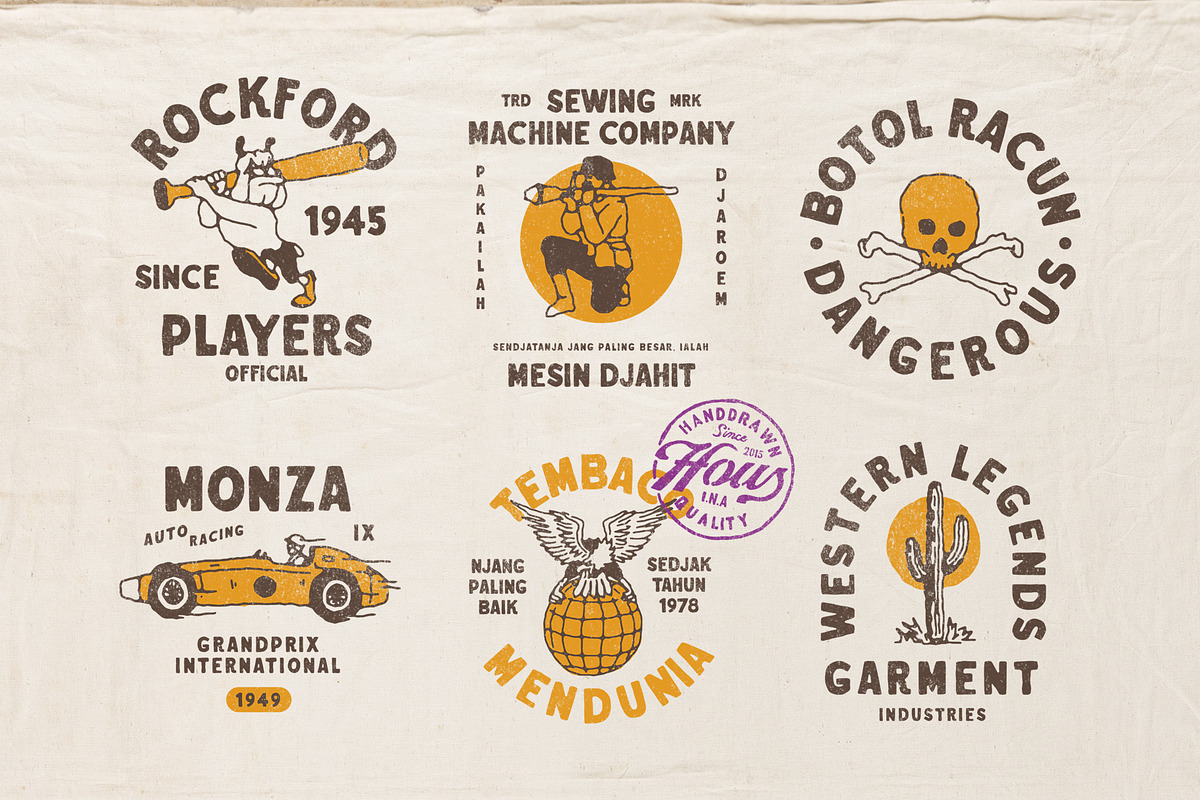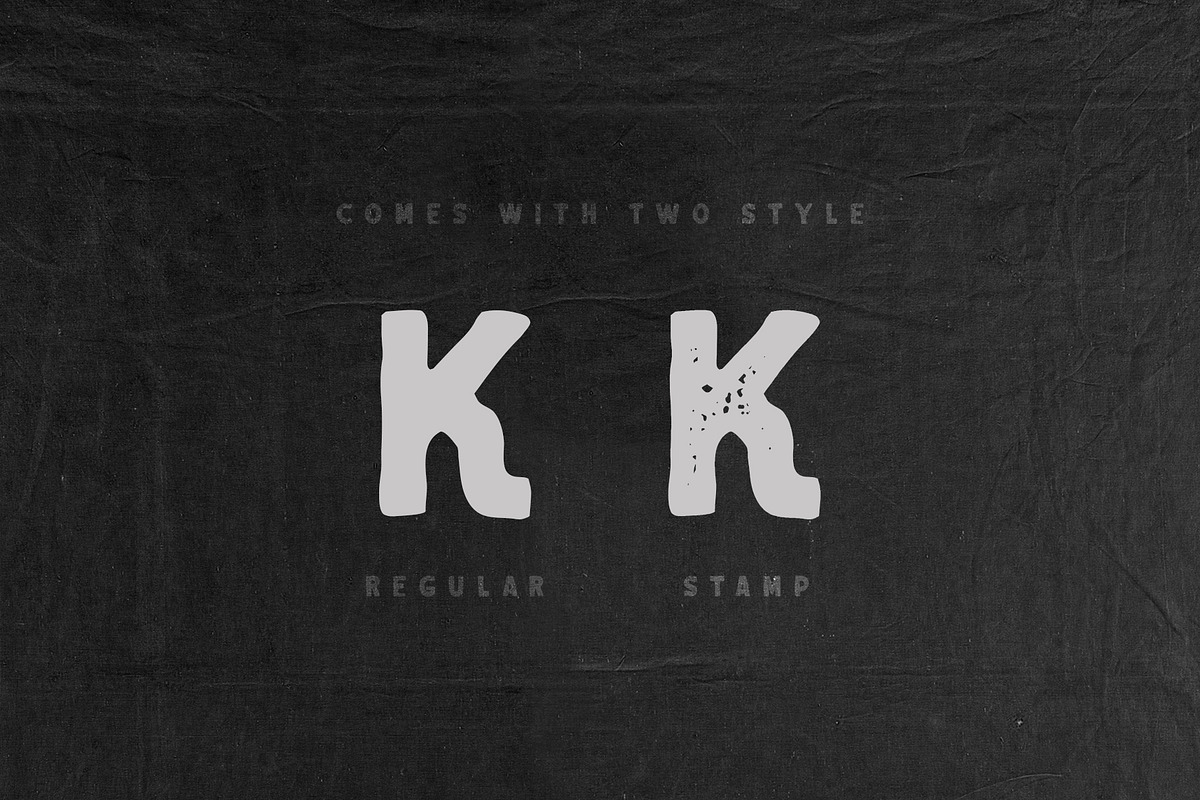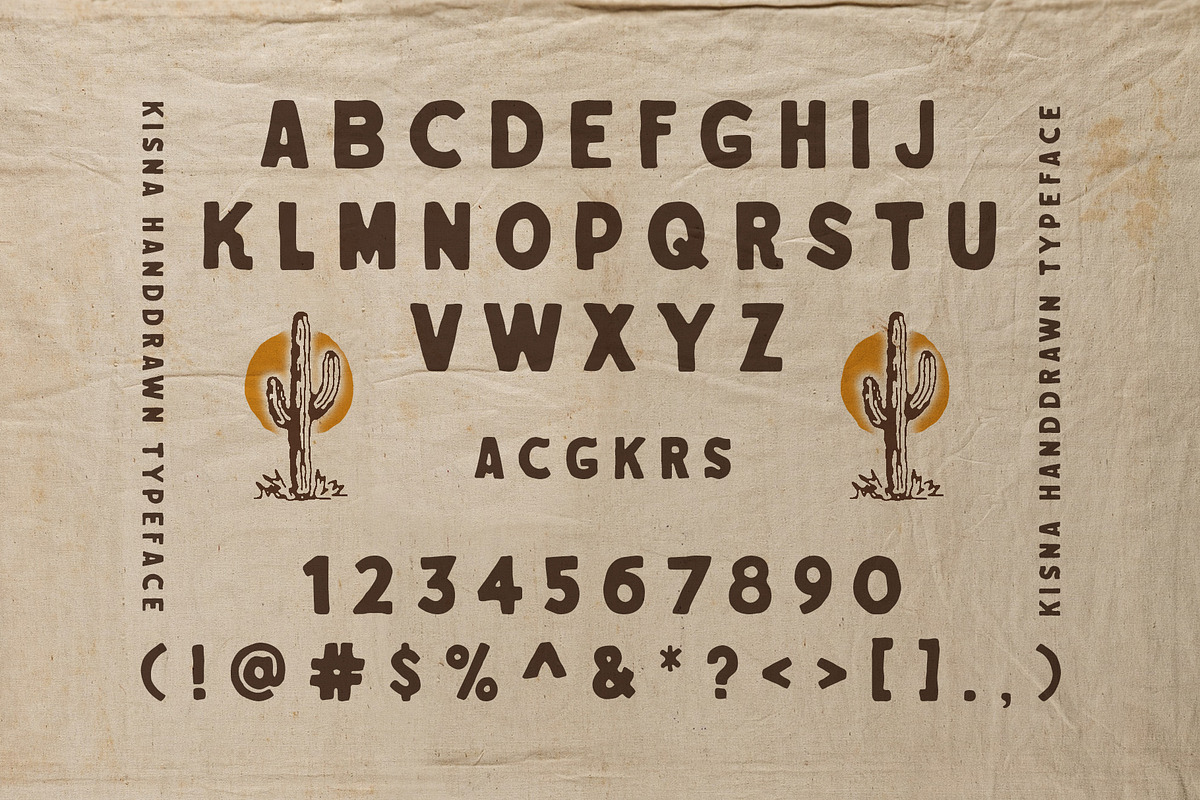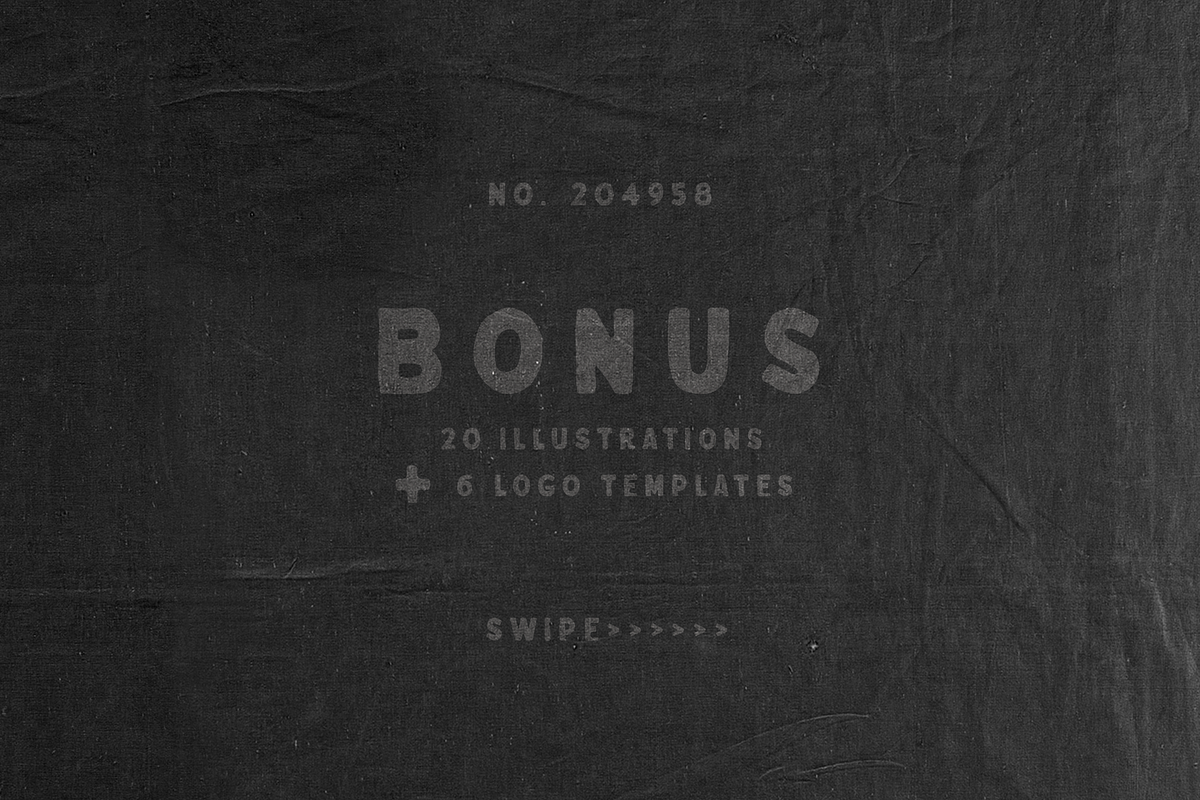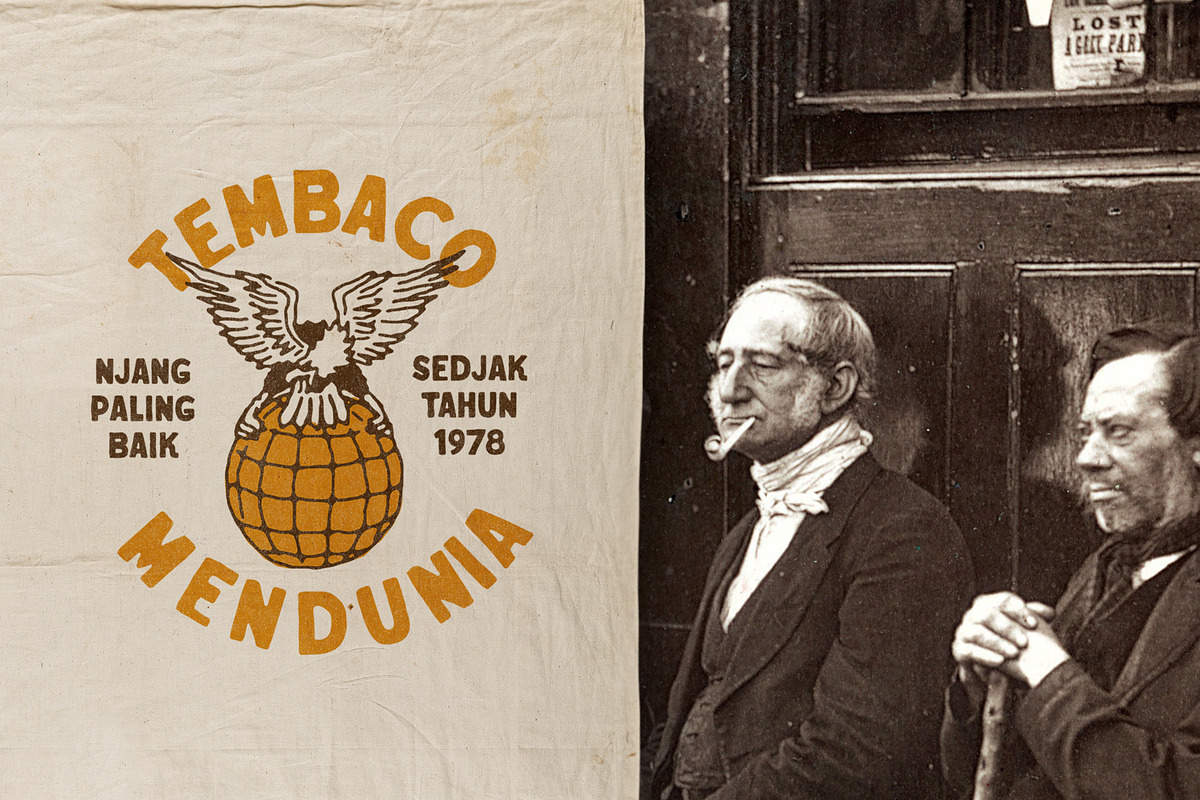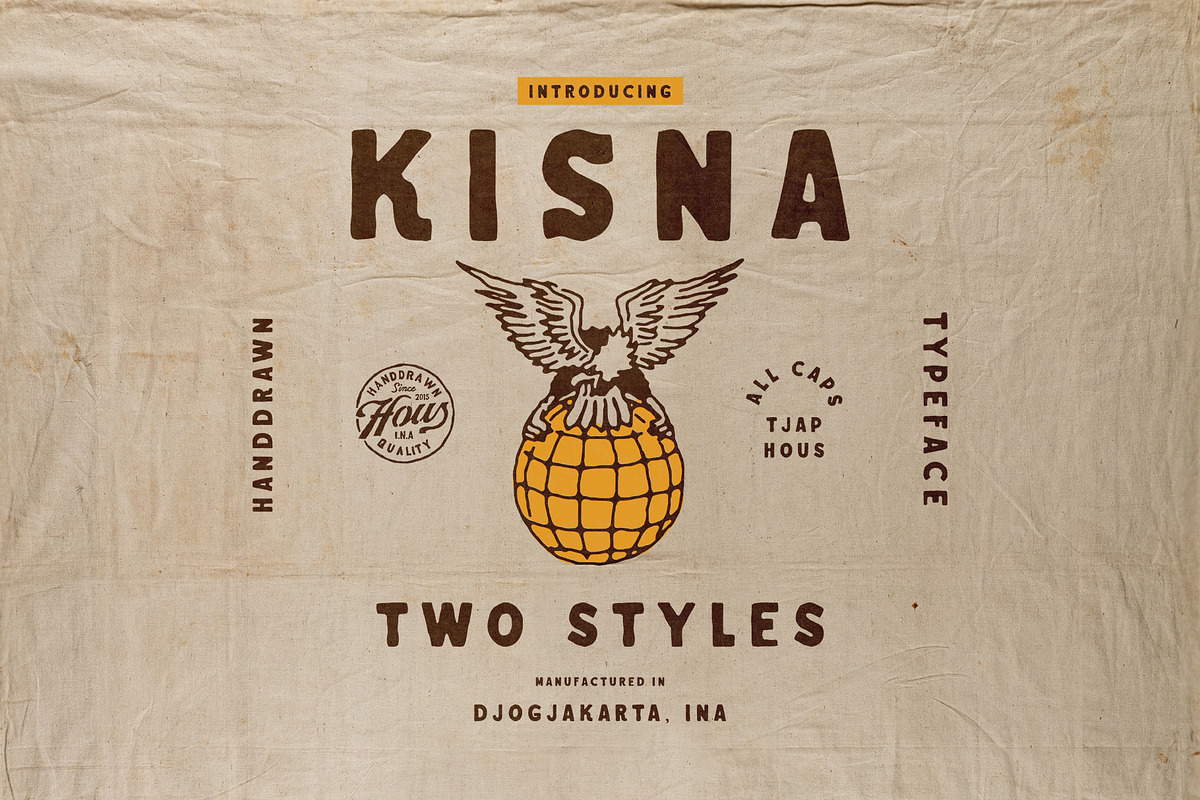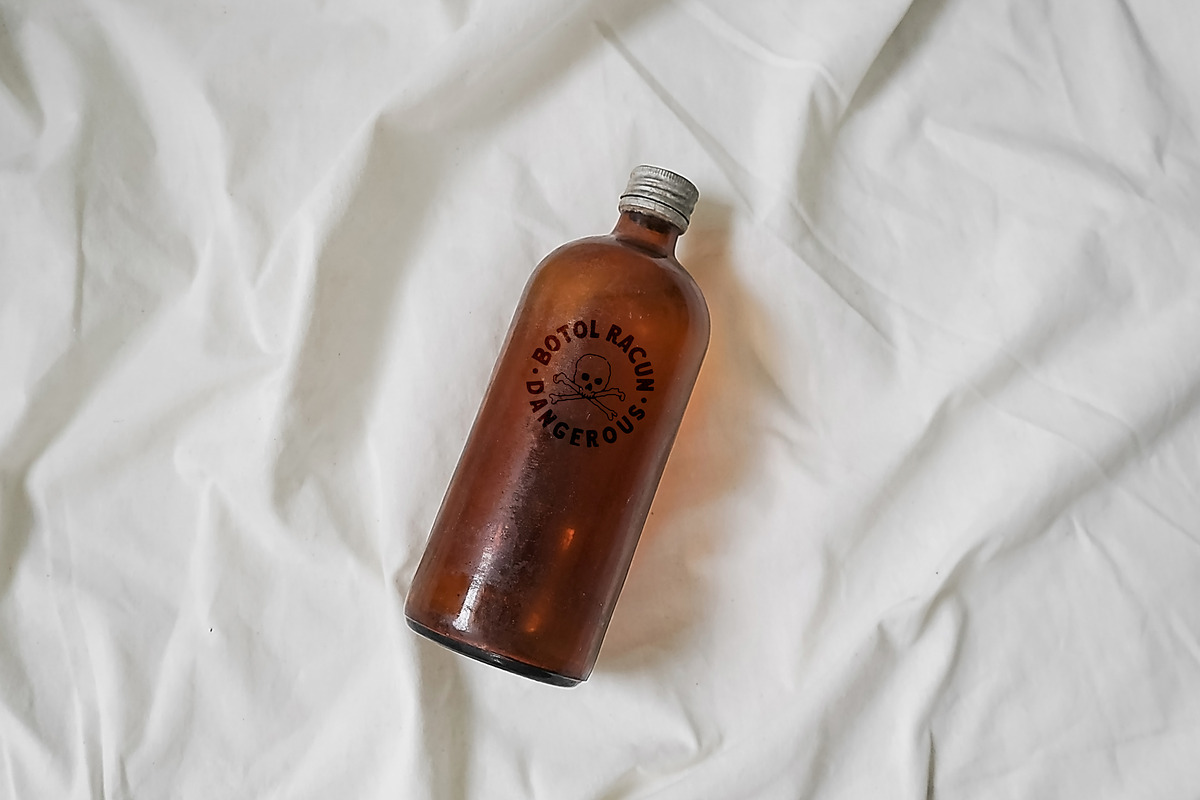
Kisna Typeface
KISNA HANDDRAWN TYPEFACE inspired by 1920's graphics. Comes with two styles regular and stamp style. Free 6 logo templates and 20 illustrations!
- Comes with two styles regular and stamp style.